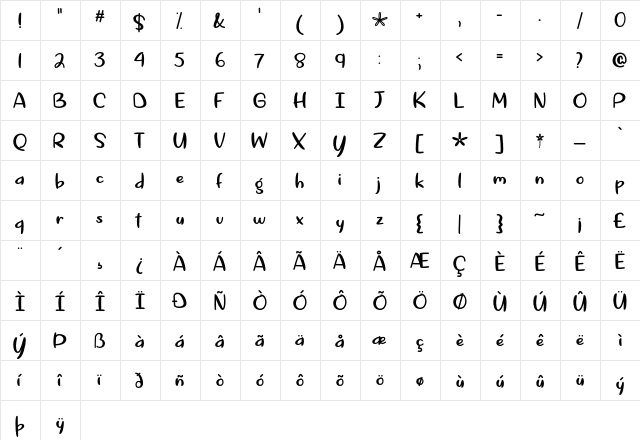
Springtime in April Regular
Design Context for Springtime in April Typeface
Springtime in April is a composed and adaptable typeface that performs quietly and consistently across a wide range of design contexts.